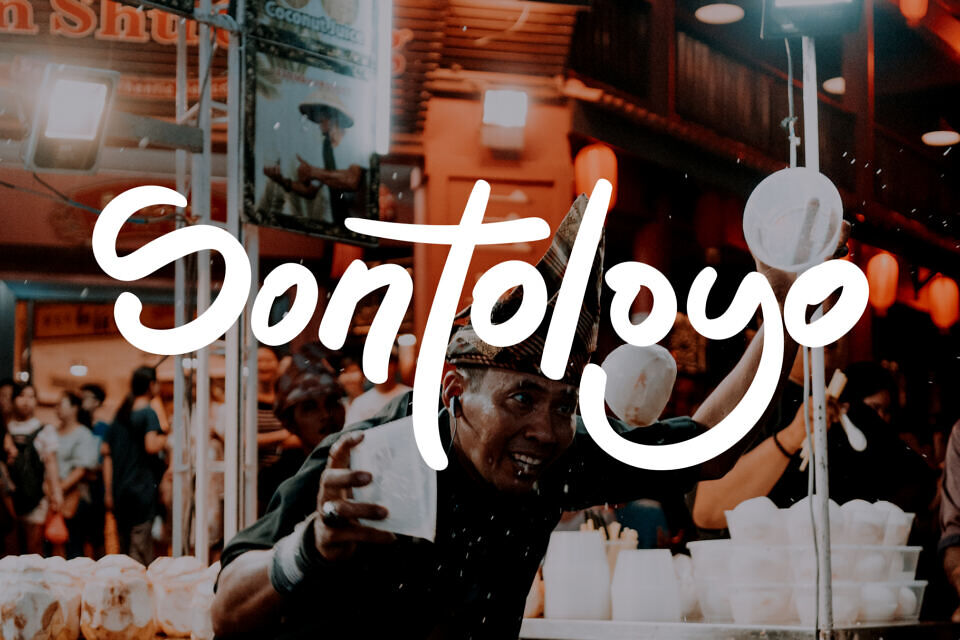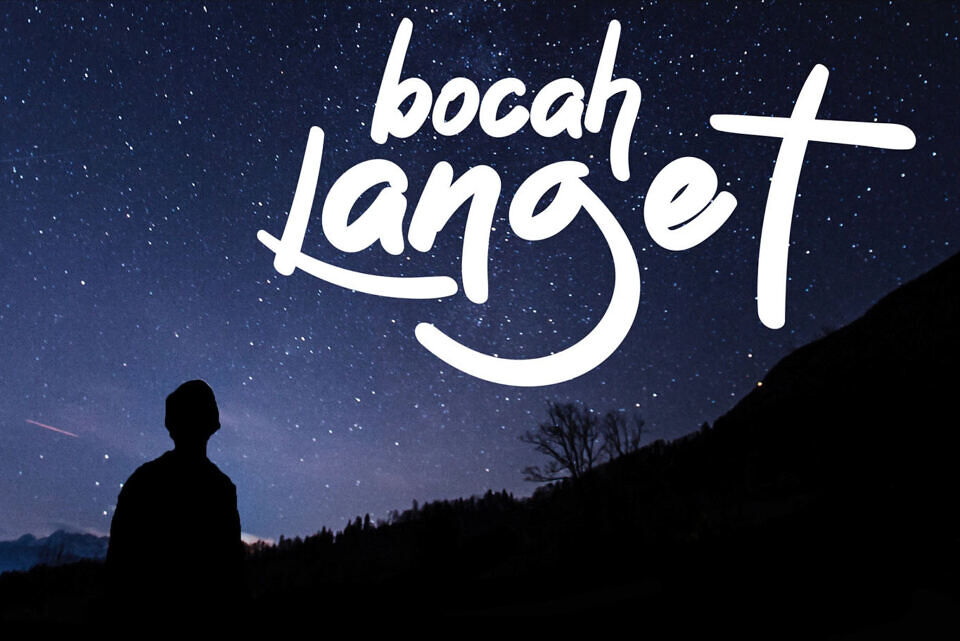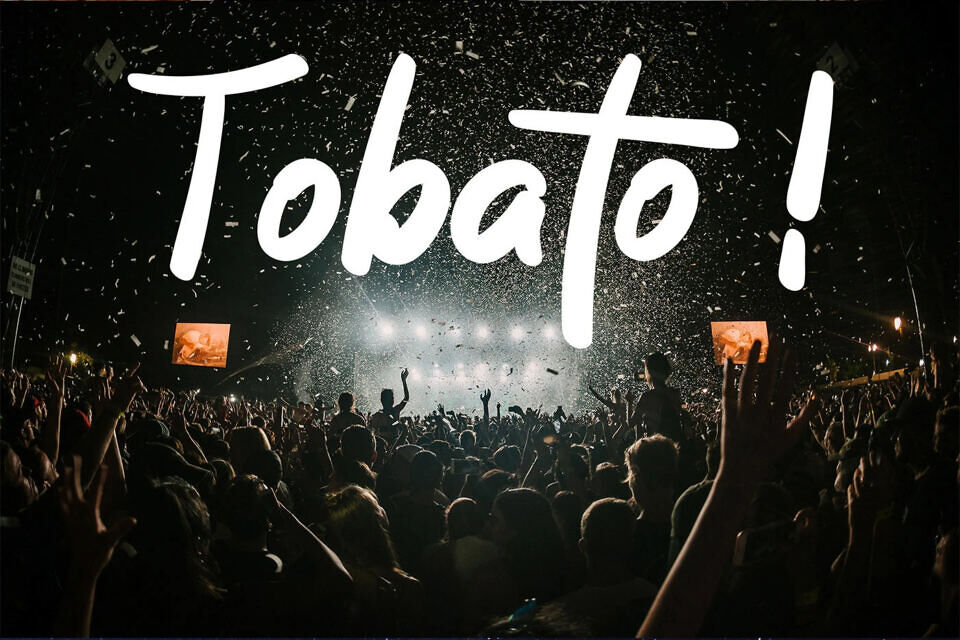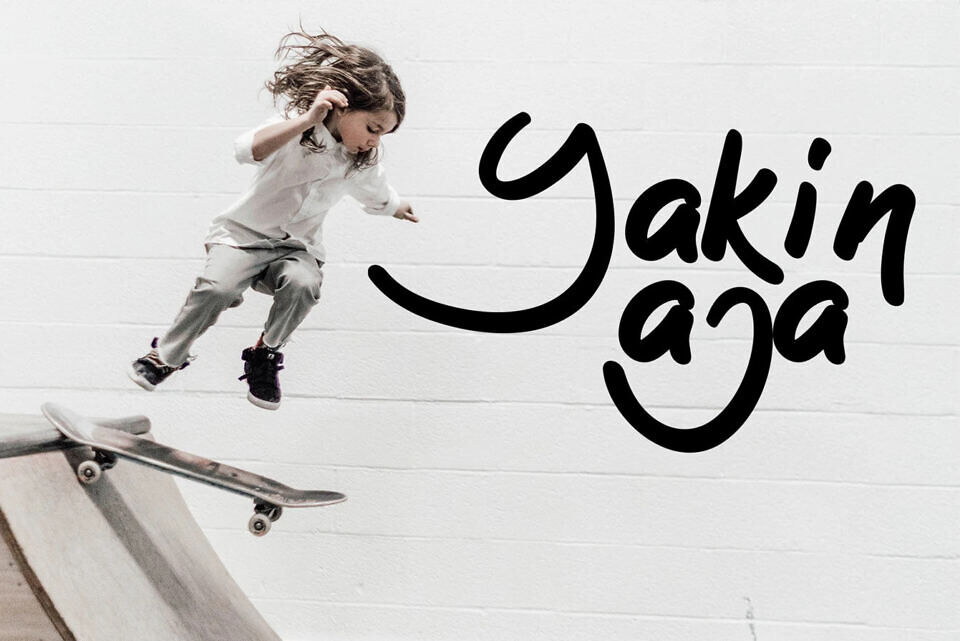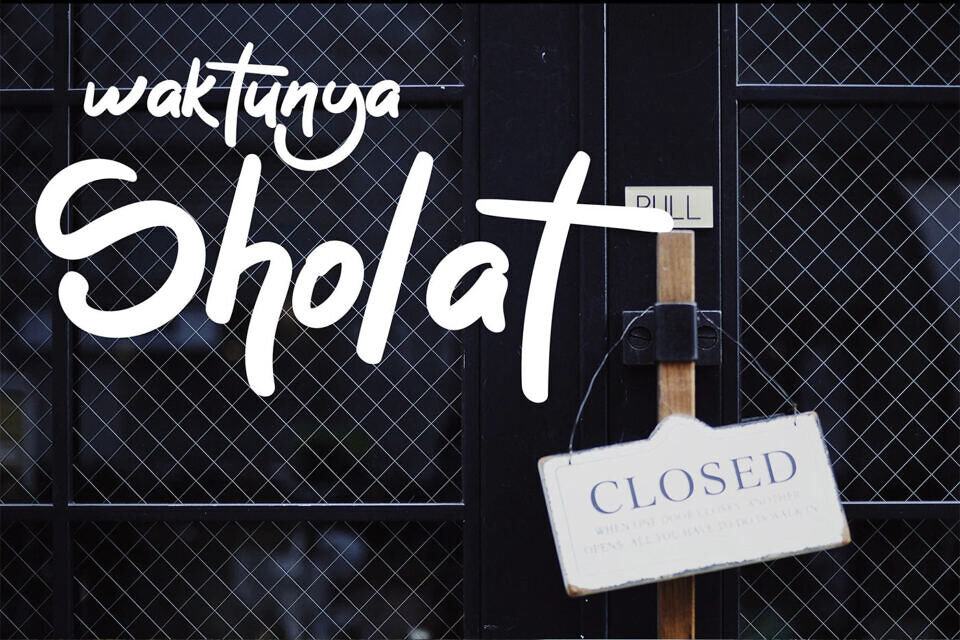
Sontoloyo Font
Sontoloyo is a casual handmade bold font coming from Alphart. It includes uppercase, lowercase, numerals, symbols and support multilingual. Sontoloyo is perfect for advertising, headlines, logo, book covers, product packaging, stylish text, quotes, greeting cards, posters and much more.